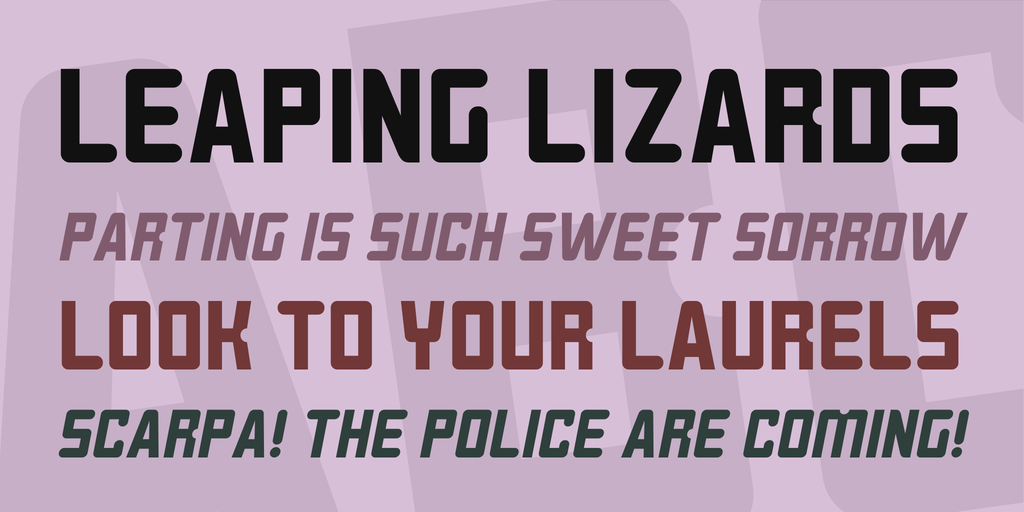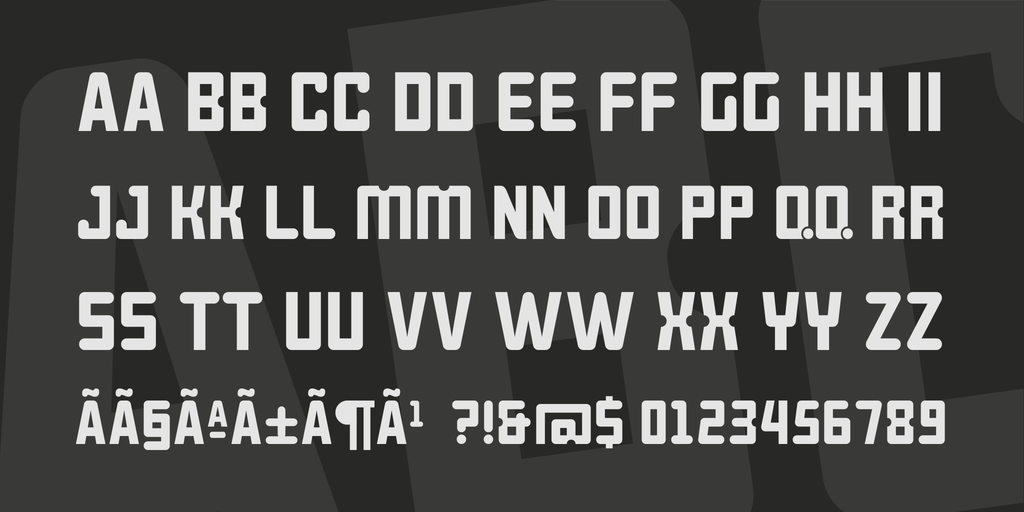
Brokeren Font: A Unique and Creative Typeface by Situjuh Nazara
Are you a designer or crafter looking for a font that can add a touch of uniqueness to your projects? Look no further than Brokeren, a font created by the talented Situjuh Nazara. In this article, we’ll dive into the world of Brokeren, exploring its features, benefits, and uses, as well as provide tips on how to make the most of this amazing font.
Who is Situjuh Nazara?
Situjuh Nazara is a renowned font designer and creator, known for his innovative and creative approach to typography. With a passion for crafting unique and functional fonts, Nazara has built a reputation for delivering high-quality typefaces that cater to the needs of designers and crafters worldwide. Brokeren is one of his notable creations, and it’s quickly gained popularity among design enthusiasts.
What is Brokeren Font?
Brokeren is a modern, sans-serif font designed with a distinctive and artistic approach. The font features clean lines, geometric shapes, and a subtle elegance that makes it perfect for a wide range of design projects. Whether you’re working on a logo, branding materials, or digital content, Brokeren is an excellent choice for adding a touch of sophistication and style.
Key Features of Brokeren Font
- Unique and distinctive design: Brokeren boasts a one-of-a-kind design that sets it apart from other fonts.
- Clean and geometric lines: The font features clean lines and geometric shapes, making it perfect for modern designs.
- High legibility: Brokeren is designed to be highly legible, even at small font sizes.
- Versatile: The font can be used for a wide range of design projects, from logos and branding materials to digital content and more.
Benefits of Using Brokeren Font
So, why choose Brokeren for your design projects? Here are just a few benefits of using this amazing font:
- Adds a touch of uniqueness: Brokeren’s distinctive design ensures that your projects stand out from the crowd.
- Enhances brand identity: The font’s clean and elegant design makes it perfect for branding materials, helping to create a strong and memorable brand identity.
- Improves readability: Brokeren’s high legibility ensures that your message is conveyed clearly and effectively.
Tips for Using Brokeren Font
To get the most out of Brokeren, here are a few tips to keep in mind:
- Experiment with font sizes: Brokeren looks great at a range of font sizes, so don’t be afraid to experiment and find the perfect size for your project.
- Pair with complementary fonts: Brokeren pairs well with a range of fonts, so try combining it with complementary fonts to create a unique and visually appealing design.
- Use for headlines and body text: Brokeren is suitable for both headlines and body text, making it a versatile addition to your font library.
In conclusion, Brokeren is an exceptional font created by the talented Situjuh Nazara. Its unique and distinctive design, clean lines, and high legibility make it perfect for a wide range of design projects. Whether you’re a designer or crafter, Brokeren is an excellent addition to your font library, and with these tips, you can make the most of this amazing font. So why not give Brokeren a try and see how it can elevate your designs?